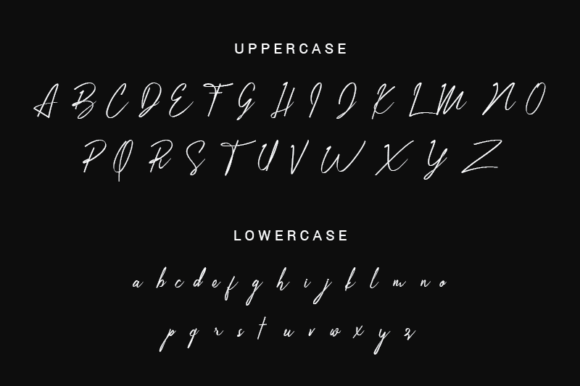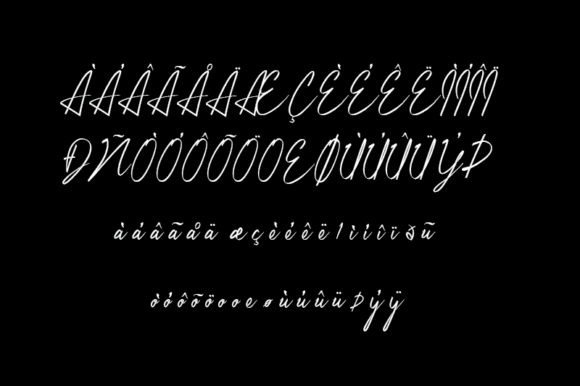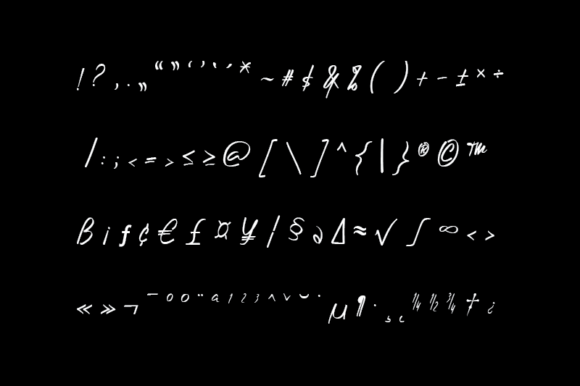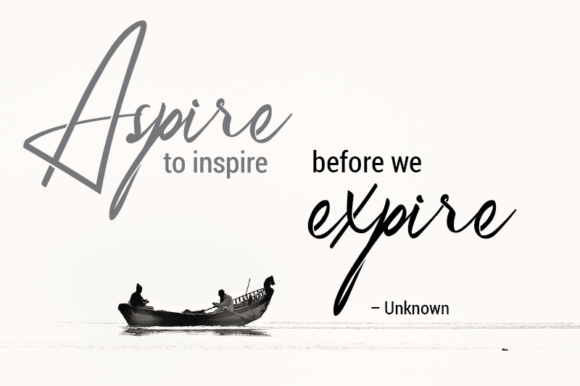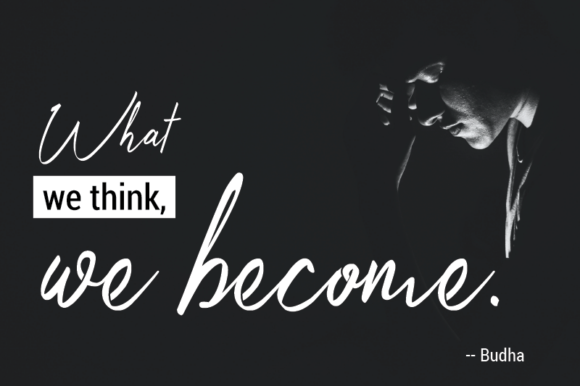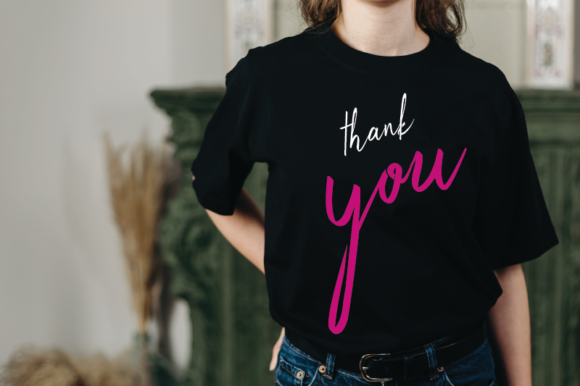
Bulgarie Font: The Perfect Handwritten Touch for Your Designs
Are you looking for a font that adds a touch of elegance and sophistication to your designs? Look no further than Bulgarie Font. This incredibly distinct, delicate, and timeless handwritten font is perfect for a variety of design projects, from wedding invitations and thank you cards to quotes, greeting cards, logos, and business cards.
The Beauty of Bulgarie Font
Bulgarie Font is a stunning handwritten font that exudes a sense of refinement and luxury. Its delicate strokes and elegant letterforms make it perfect for designs that require a touch of sophistication. Whether you’re creating a wedding invitation, a thank you card, or a business card, Bulgarie Font is sure to make your design stand out.
Versatility of Bulgarie Font
One of the best things about Bulgarie Font is its versatility. It can be used for a wide range of design projects, including:
- Wedding invitations: Add a touch of elegance to your wedding invitations with Bulgarie Font.
- Thank you cards: Express your gratitude in style with Bulgarie Font.
- Quotes: Make your quotes stand out with the beautiful and delicate strokes of Bulgarie Font.
- Greeting cards: Create stunning greeting cards for any occasion with Bulgarie Font.
- Logos: Add a touch of sophistication to your logo with Bulgarie Font.
- Business cards: Make a lasting impression with Bulgarie Font on your business cards.
Why Choose Bulgarie Font?
There are many reasons why Bulgarie Font is a great choice for your design projects. Here are a few:
- Unique and distinctive: Bulgarie Font is an incredibly distinct font that will set your designs apart from the rest.
- Elegant and sophisticated: Bulgarie Font exudes a sense of refinement and luxury, making it perfect for designs that require a touch of sophistication.
- Timeless: Bulgarie Font is a timeless font that will never go out of style.
- Easy to read: Despite its delicate strokes, Bulgarie Font is easy to read, making it perfect for designs that require a lot of text.
Tips for Using Bulgarie Font
Here are a few tips for using Bulgarie Font in your designs:
- Use it sparingly: Bulgarie Font is a beautiful font, but it can be overwhelming if used too much. Use it sparingly to add a touch of elegance to your designs.
- Pair it with other fonts: Bulgarie Font pairs well with other fonts, such as sans-serif fonts. Experiment with different font combinations to find the perfect look for your design.
- Adjust the size: Bulgarie Font looks great in a variety of sizes. Experiment with different sizes to find the perfect look for your design.
| Font Name | Bulgarie Font |
| Author | Smart Studio |
Bulgarie Font is a beautiful and versatile handwritten font that is perfect for a variety of design projects. Its delicate strokes and elegant letterforms make it a great choice for designs that require a touch of sophistication. With its timeless beauty and ease of use, Bulgarie Font is a great addition to any designer’s toolkit.